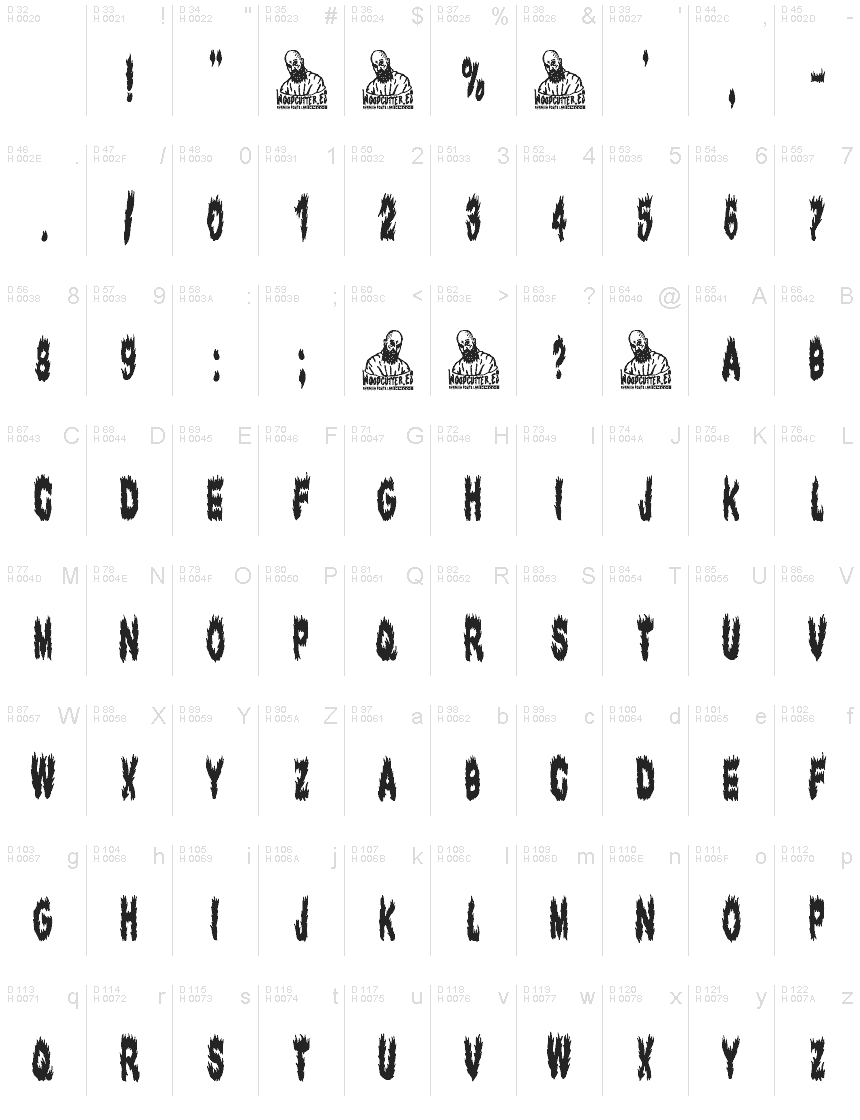
Extreme Fire
Extreme Fire font by Woodcutter is a display typeface with bold, condensed letters outlined by fiery flames. The main focus of this work is to give intensity and energy to each written letter/word so that the overall messages become purely expressive and dramatic. With its chaotic style, the distinctive work can add a lot of character and depth to your typical designs.
Get creative with this free decorative font by adding it to cafés or restaurants titles, especially those serving spicy meals. An online cooking channel can gain attention too when using it in video titles or cover images. Other areas of usage include movie posters, game covers, spooky titles for Halloween parties, music album covers and even album covers for books related to horror/thriller fiction stories.